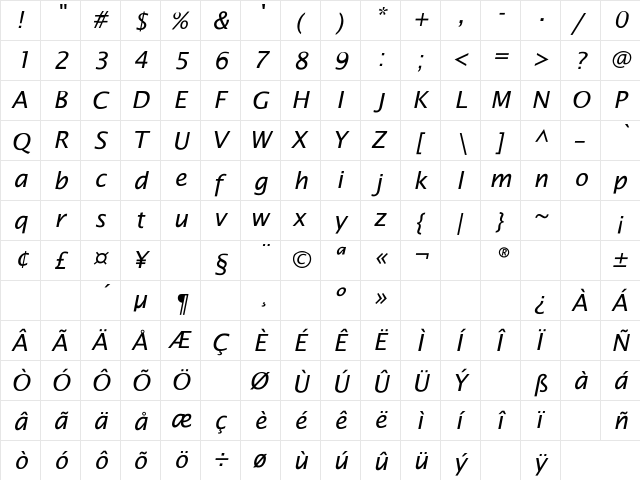
Lucerne Plain Regular
Design Context for Lucerne Plain Typeface
Lucerne Plain takes a measured approach to typography — its balanced proportions and neutral character make it a reliable workhorse for both digital and print work.